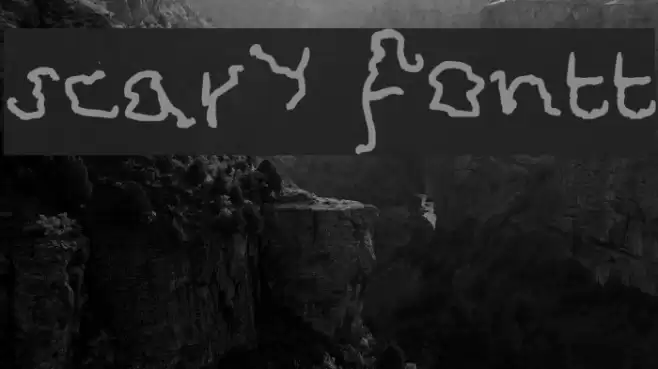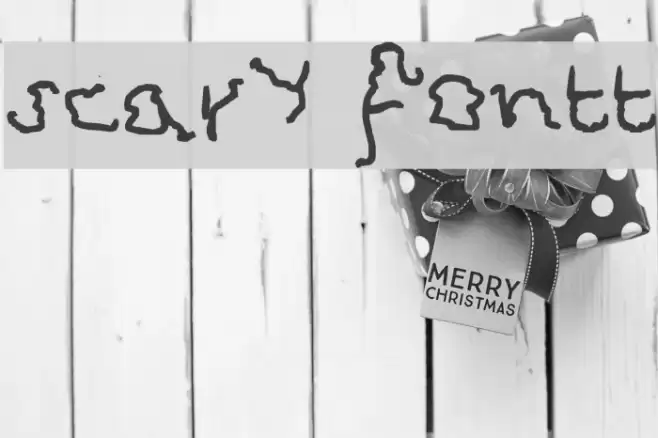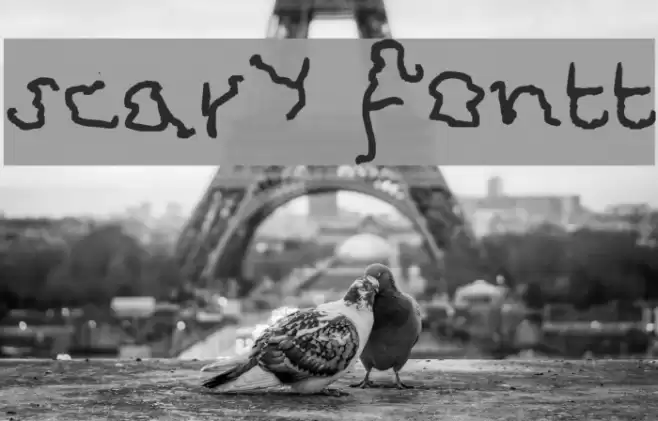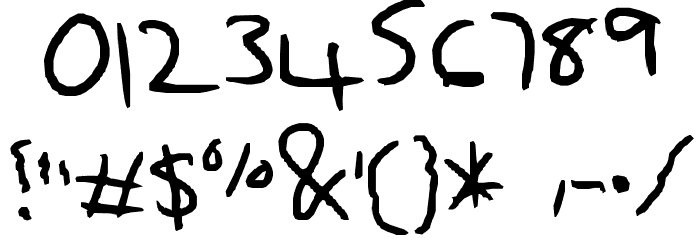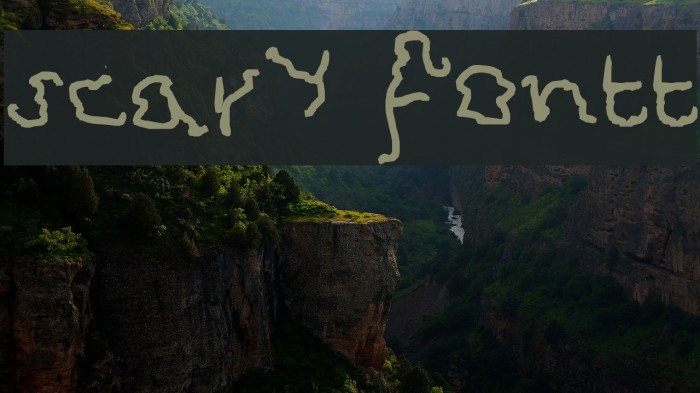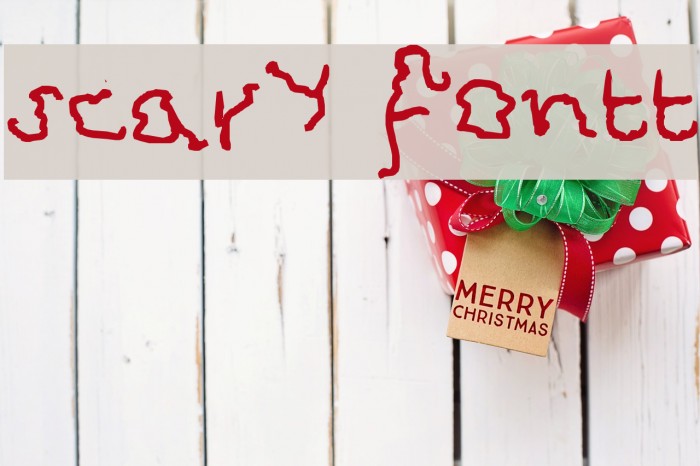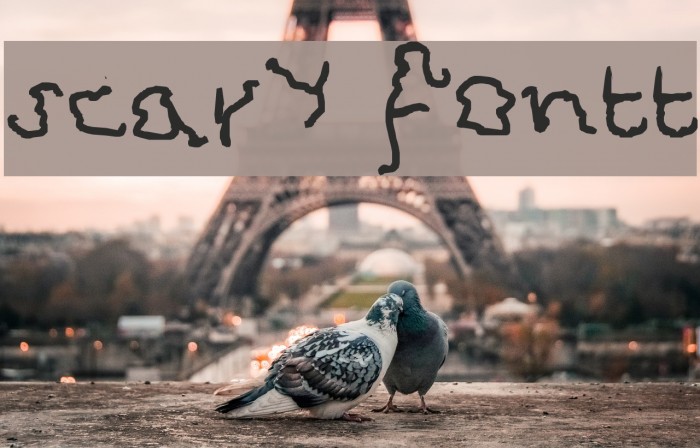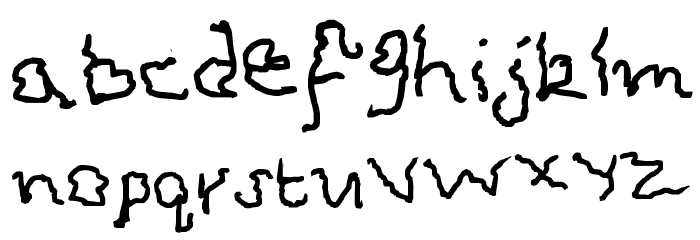
scary fontt Font
scary fontt Description
This font features a jagged, irregular style that evokes a sense of unease and mystery. The characters are unevenly shaped, with varying stroke thicknesses that contribute to its unsettling appearance. The uppercase and lowercase letters maintain a consistent eerie aesthetic, with sharp edges and unpredictable curves. Numbers and special characters follow the same theme, adding to the overall haunting vibe. This font is perfect for creating a chilling atmosphere in design projects.
An irregular, jagged font with an eerie, unsettling style from Uncategorized fonts.